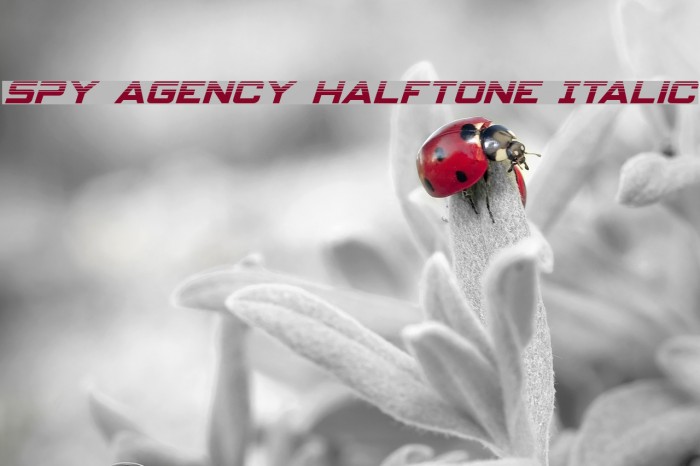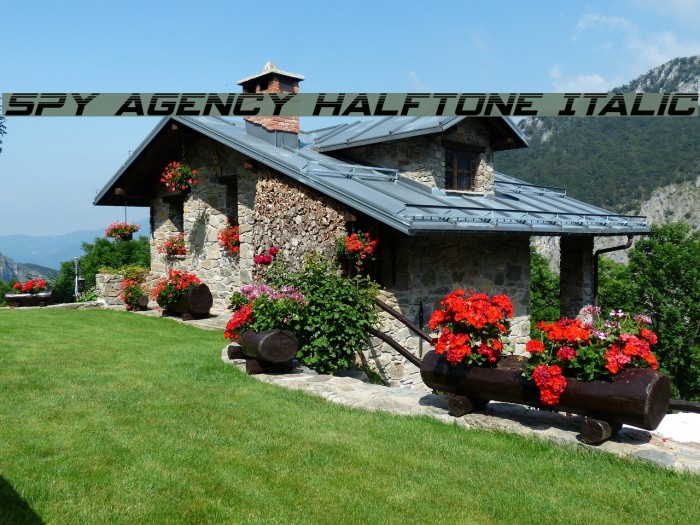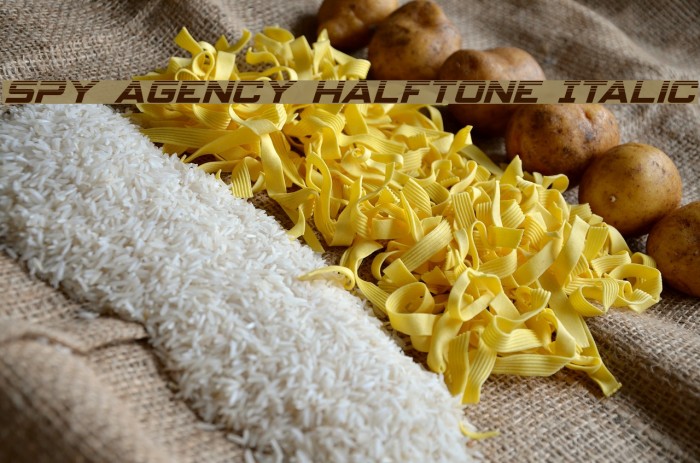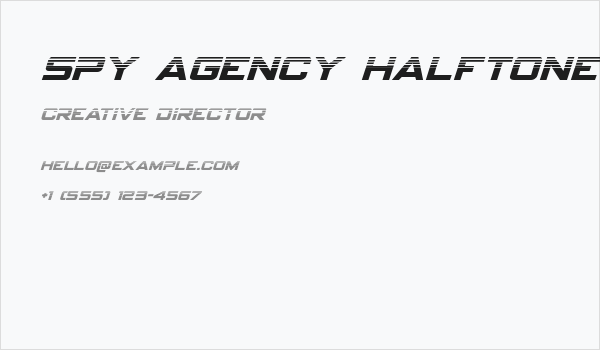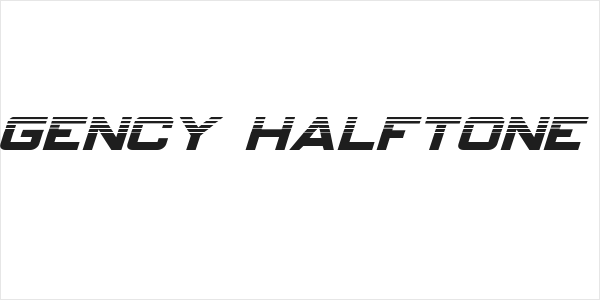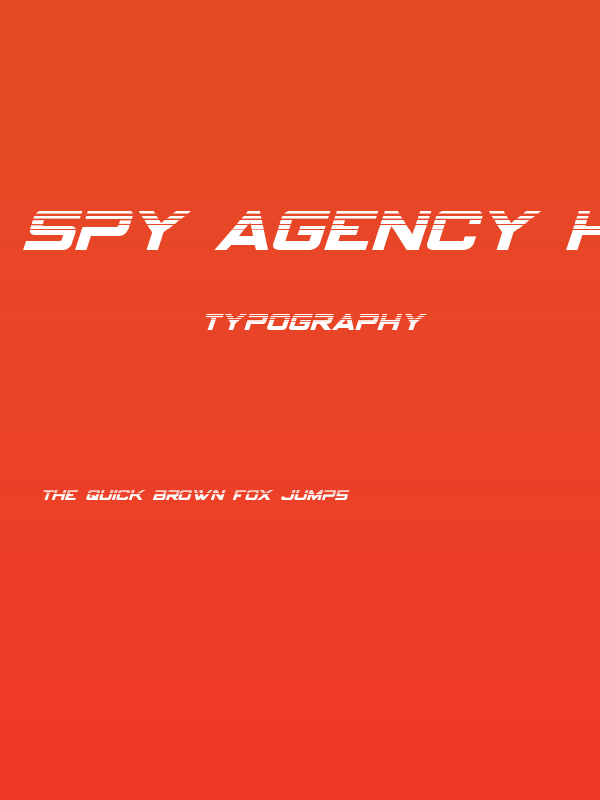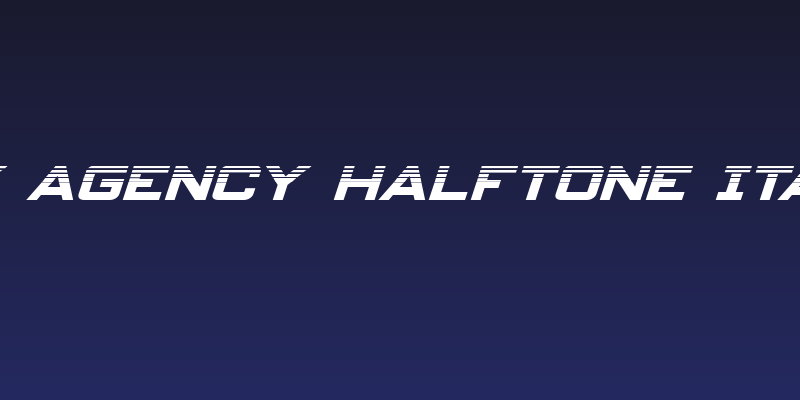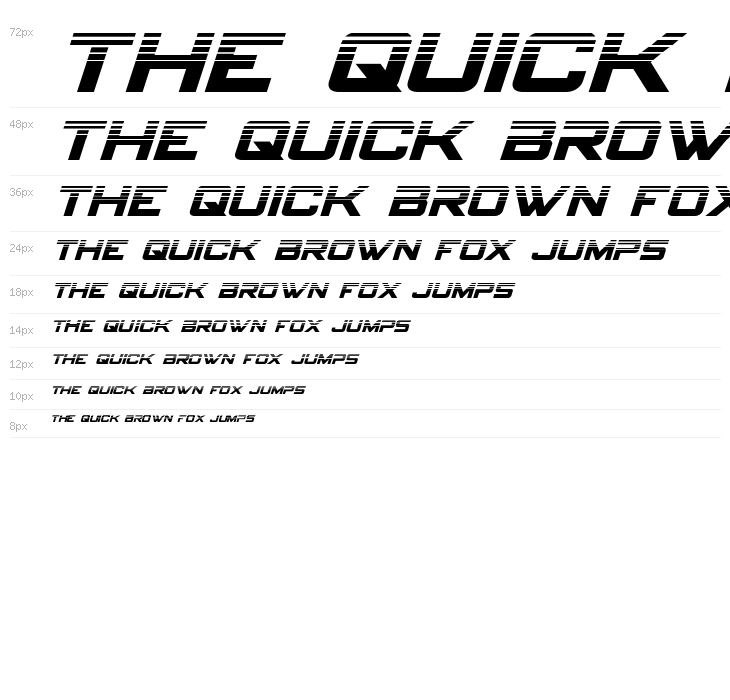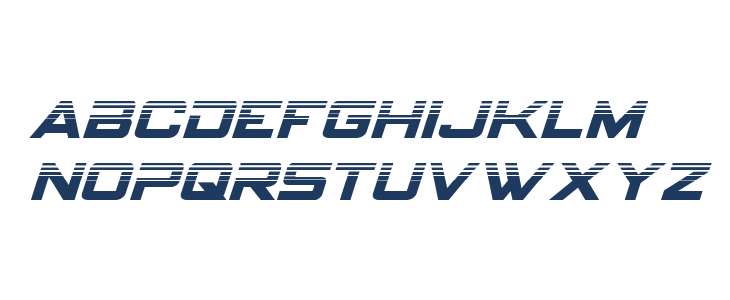
Spy Agency Halftone Italic Font
Spy Agency Halftone Italic Description
This font features a bold and dynamic design with a distinct halftone effect, giving it a futuristic and edgy appearance. The characters are italicized, adding a sense of motion and speed, which is further enhanced by the horizontal lines that cut through each letter. The uppercase and lowercase letters maintain a consistent style, with sharp angles and a geometric structure. The numerals and special characters follow the same design principles, ensuring uniformity across all glyphs. This font is ideal for projects that require a modern and impactful look.
| Proposed Projects | Ideal for sci-fi themed posters, video game titles, tech branding, and dynamic sports logos. |